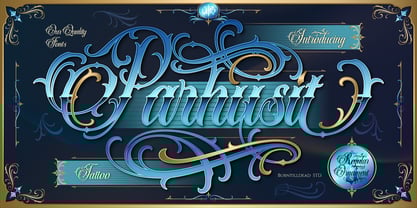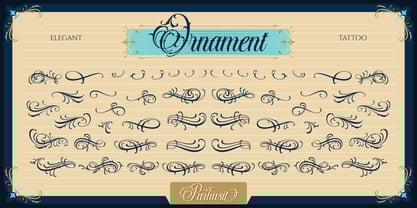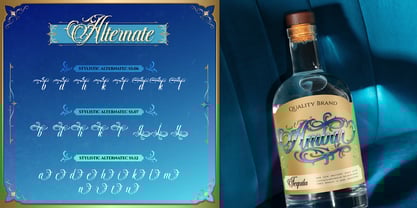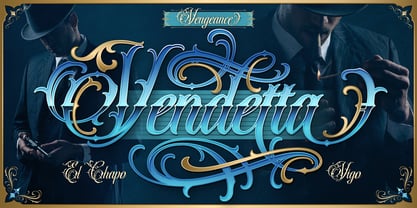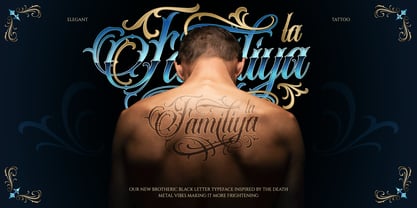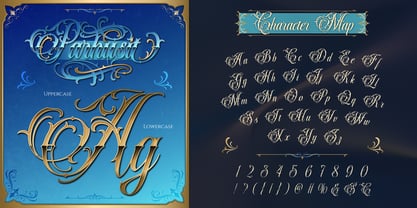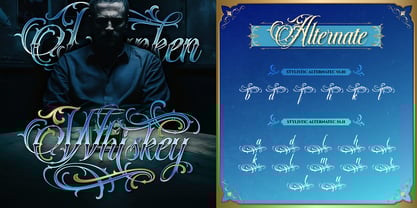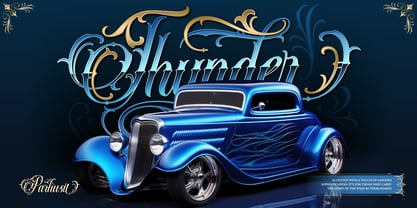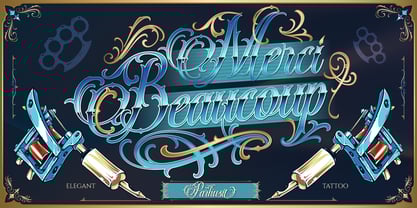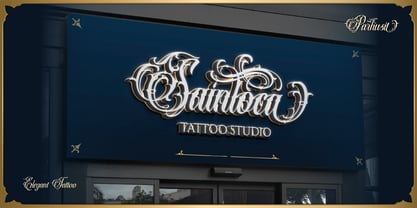
Parhusit
The Parhusit Font Family was designed by Eric Kurniawan and published by Burntilldead. Parhusit contains 2 styles and family package options.
Proudly introduce, Parhusit , a script font with tattoo style flair inspired by the bold shapes of blackletter. This font combines elegance and masculinity in a unique way, featuring detailed flourishes and stylish swirls. Parhusit comes in two styles: Regular and Ornaments. The ornament style adds an extra touch of luxury, helping your designs feel more refined and step into a whole new visual world. It carries a glamorous dark vibe, luxurious yet mysterious, like an elegant gangster tattoo or an exclusive club logo.
Perfect for barbershops, tattoo studios, luxury garages, or streetwear branding.
• Uppercase & Lowercase
• Number
• Punctuation
• Alternate
• Multilingual